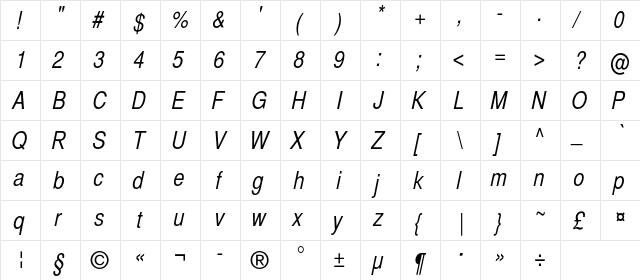
BastionC Italic
Design Context for BastionC Typeface
BastionC offers clean, dependable letterforms without strong stylistic allegiance, making it a practical choice for designers who need flexibility. The slanted form adds forward momentum and visual energy.
Pro Tip: Try BastionC for annotation and caption copy alongside an upright companion — the contrast in angle creates a dynamic but ordered typographic system.